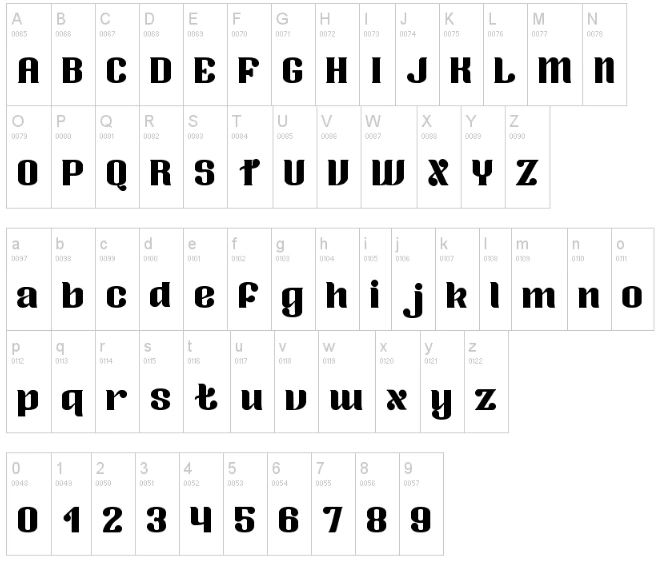
Hello everyone, check out this display font called Zoika. The font with a display typeface with a classy and luxurious look. The Zoika font is perfect for your multidimensional projects.
If you are looking for a display style suited to your design, then Zoika Font could be the one. Multiple languages support the Zoika font. This font has many combination styles, e.g., modern, classic, luxury, fashion, sans serif, decorative.
This font will work on any media, and you can use it for logo, headline, typography poster, product packaging, or event your wedding invitation.
Zoika Font View
Style | Display |
Designer | Victor Zanin |
Ans: Zoika is a display typeface designed by Victor Zanin.